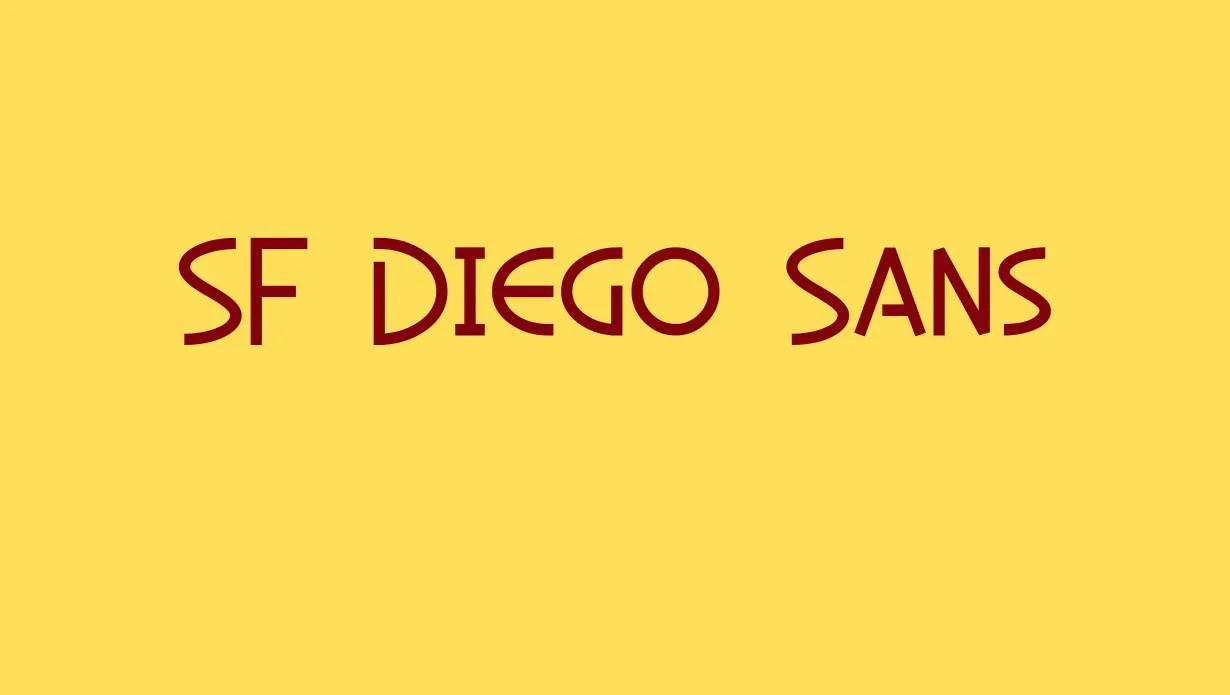
About SF Diego Sans Font
SF Diego Sans Font is a contemporary and friendly geometric sans-serif typeface that embodies the vibrant, sun-soaked spirit of Southern California. Its design balances geometric precision with subtle humanist warmth, featuring open apertures, a large x-height, and rounded terminals for exceptional legibility across both digital and print mediums. The family offers a versatile range of weights, from a delicate Thin to a impactful Black, each carefully crafted to maintain clarity and personality. This makes SF Diego Sans a highly adaptable choice for modern branding systems, website interfaces, mobile applications, and editorial design that aims to communicate approachability, freshness, and clean, West Coast style.